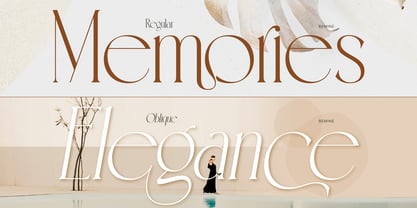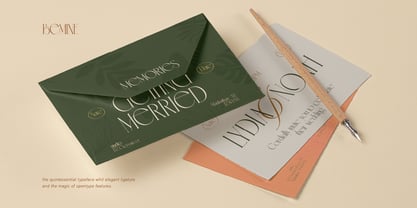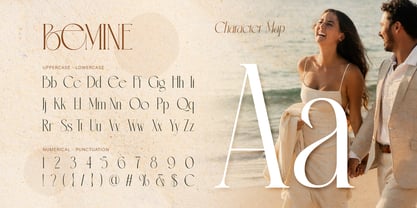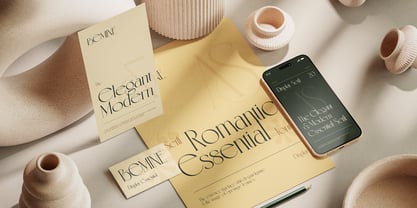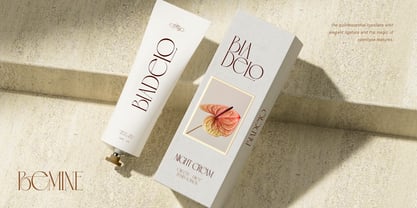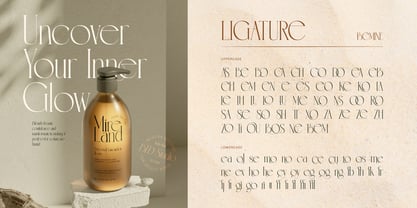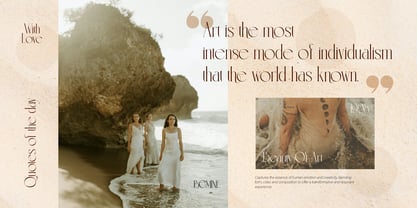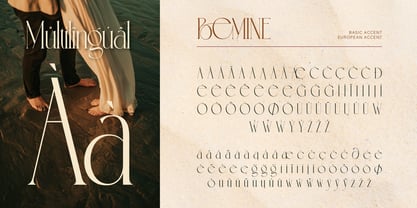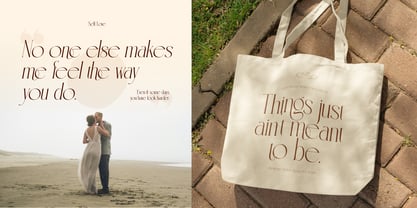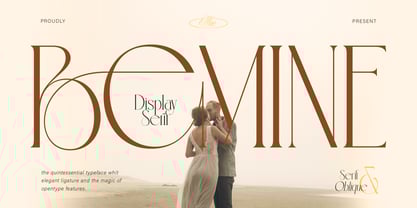
Bemine
Introducing Bemine, a display serif font with a unique and eye-catching look—perfect for designs that want to appear classy and romantic. This font features strong contrast between thick vertical strokes and thin horizontal lines, creating a glamorous, luxurious, and high-fashion feel. It's perfect for wedding invitations, fashion branding, book covers, headlines, editorials, magazines, and any design project that needs a graceful with a strong presence look.
Features:
• Uppercase & Lowercase
• Number
• Punctuation
• Alternate
• Ligatures
• Multilingual